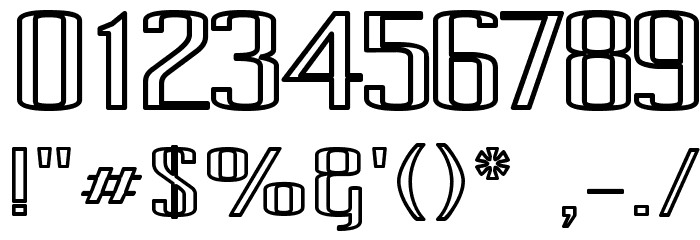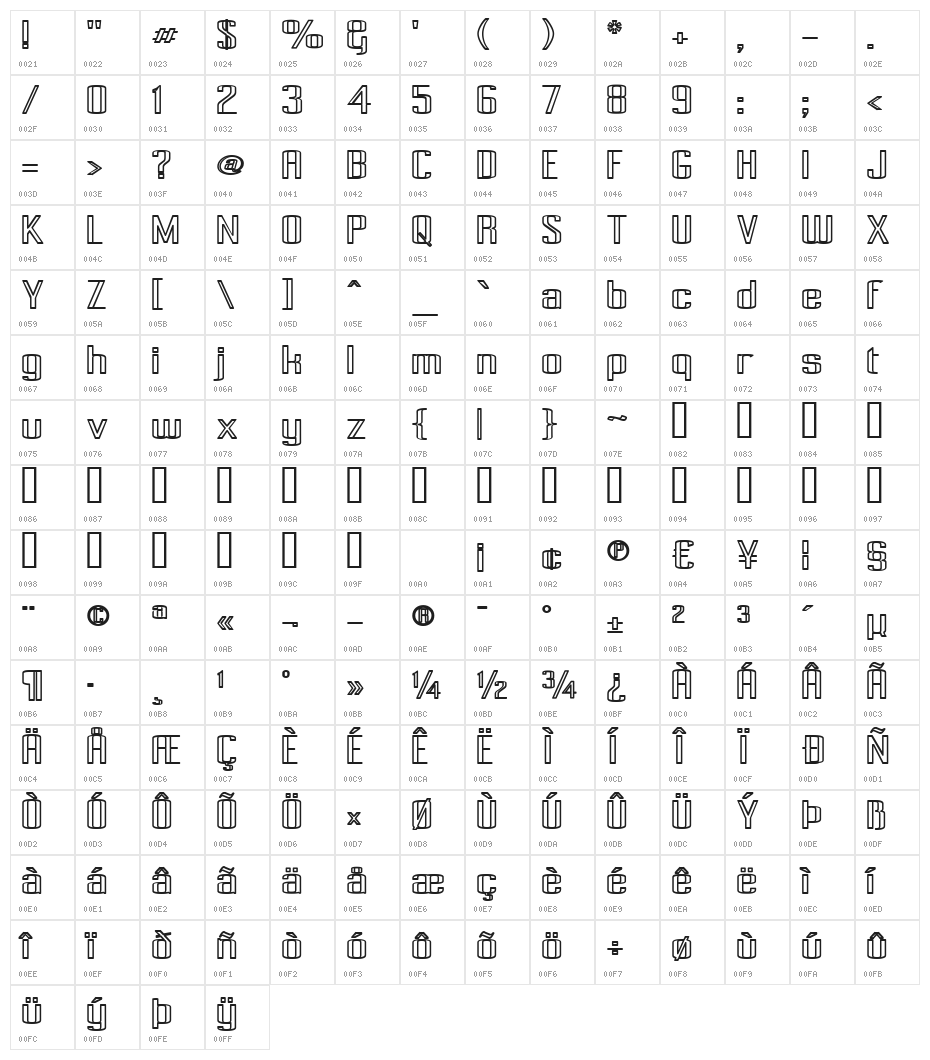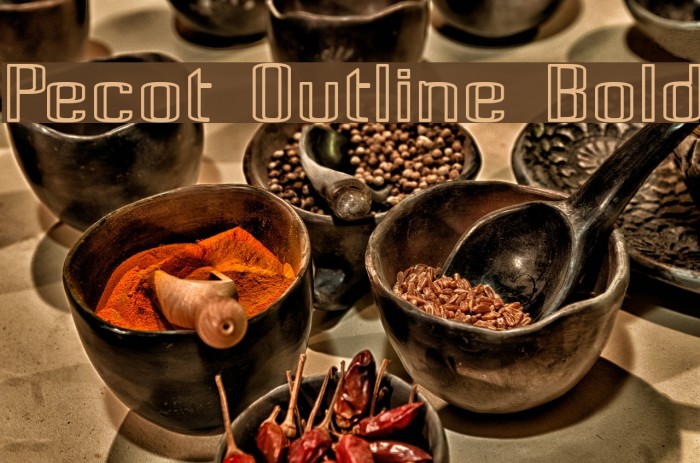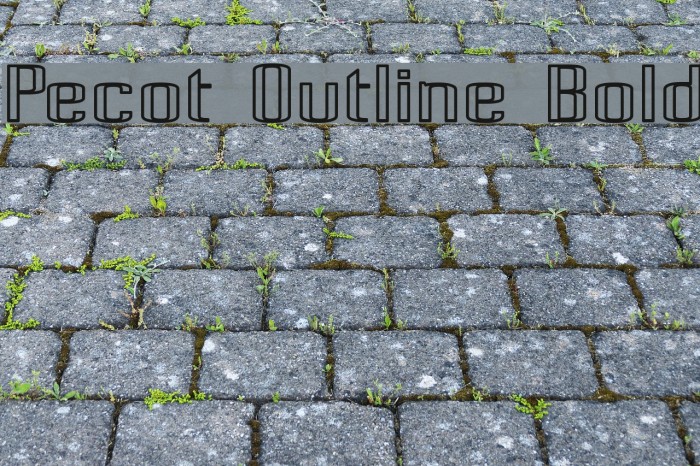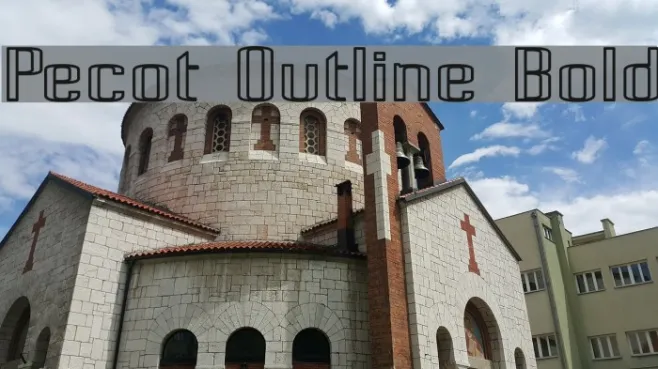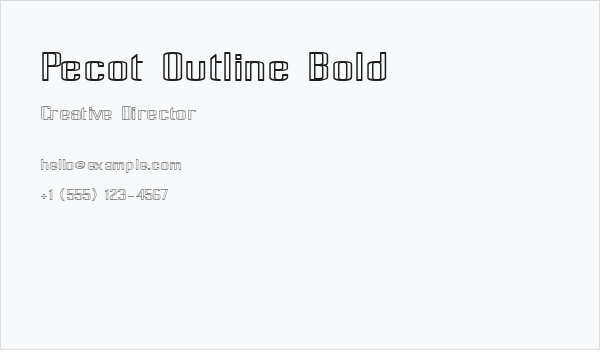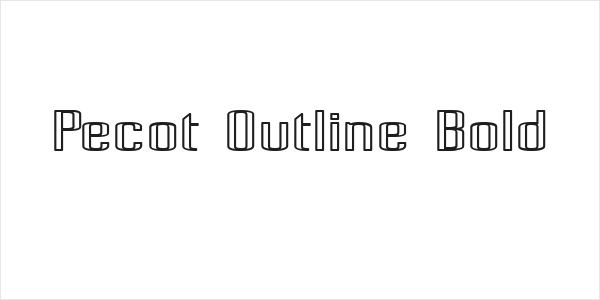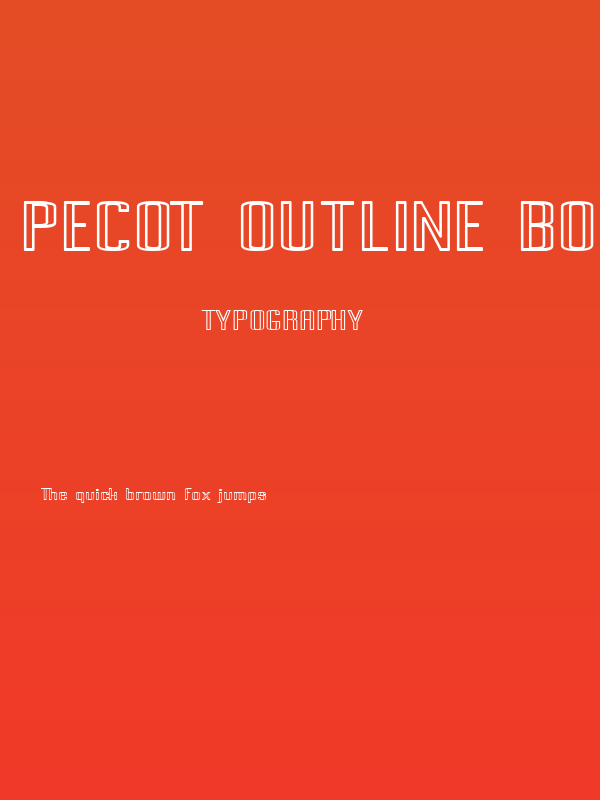
Pecot Outline Bold Font
Pecot Outline Bold Description
This font features a bold, outlined style with a geometric and modern appearance. The uppercase and lowercase letters are consistent in their outline design, providing a clean and structured look. The numerals and special characters maintain the same outlined aesthetic, ensuring uniformity across all characters. Its boldness and outline make it stand out, making it suitable for attention-grabbing designs. The font's design is both contemporary and versatile, allowing it to be used in various creative projects.
| Proposed Projects | Ideal for posters, headlines, logos, and branding materials where a modern and bold statement is needed. |